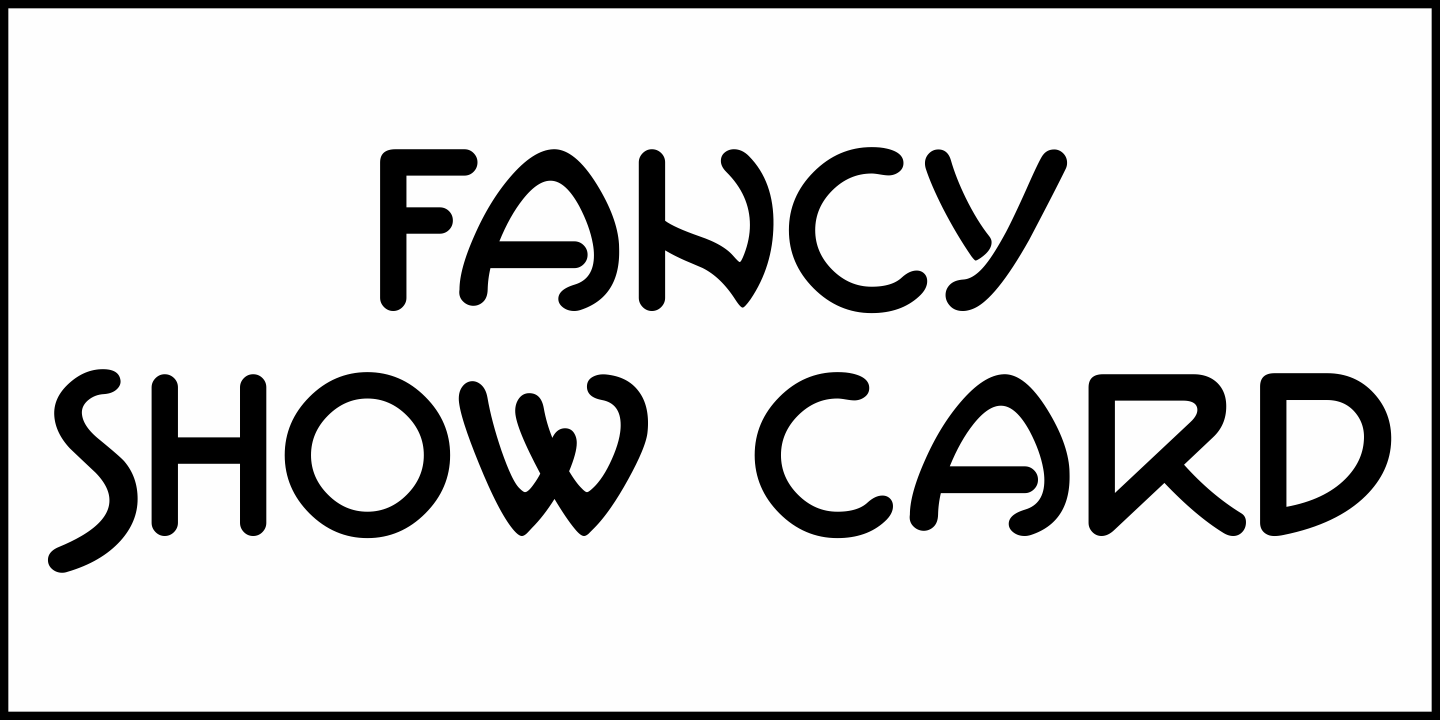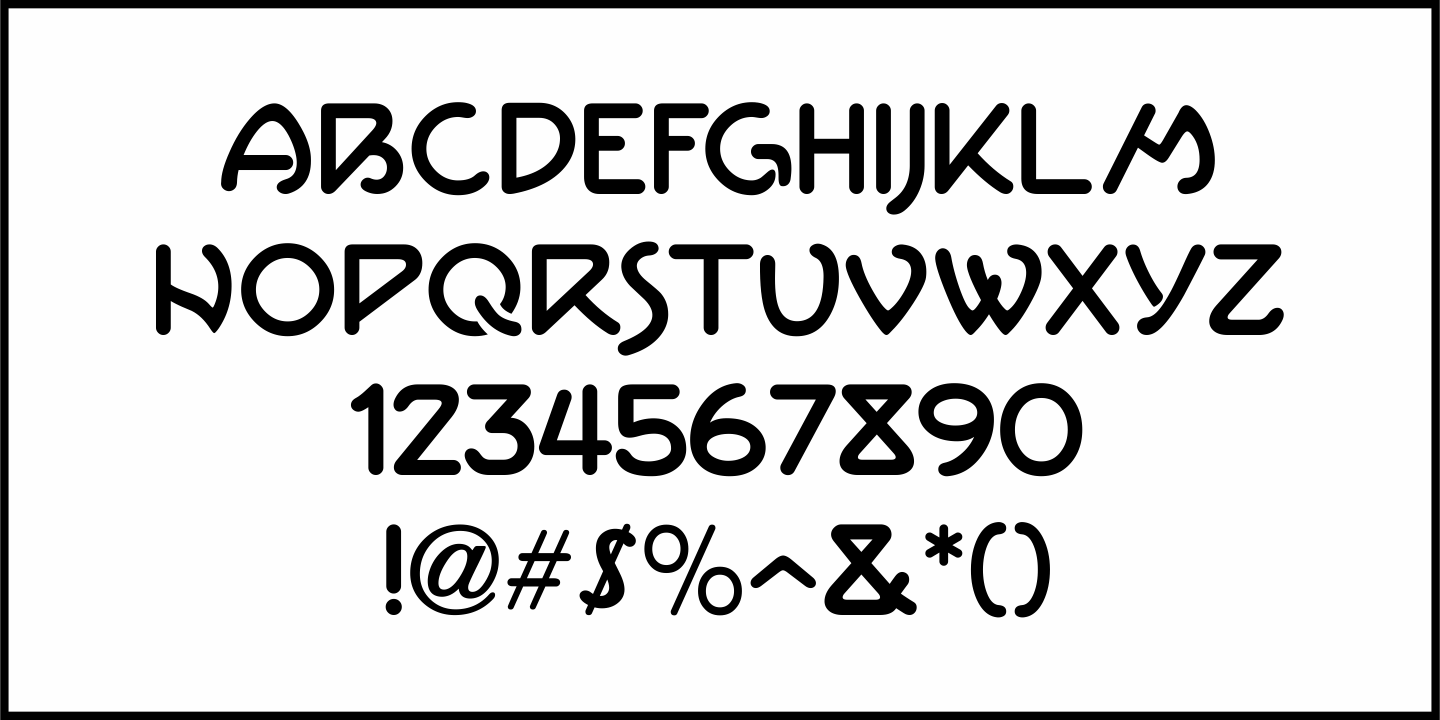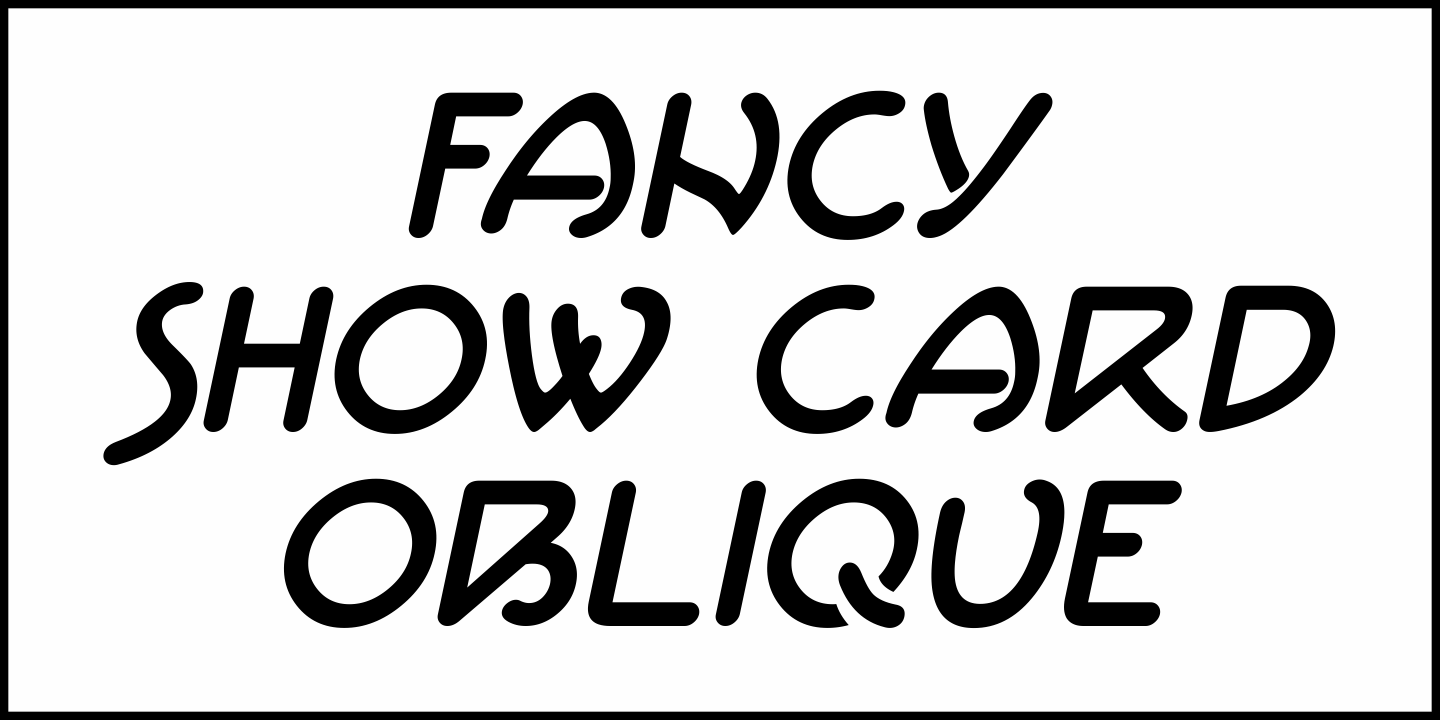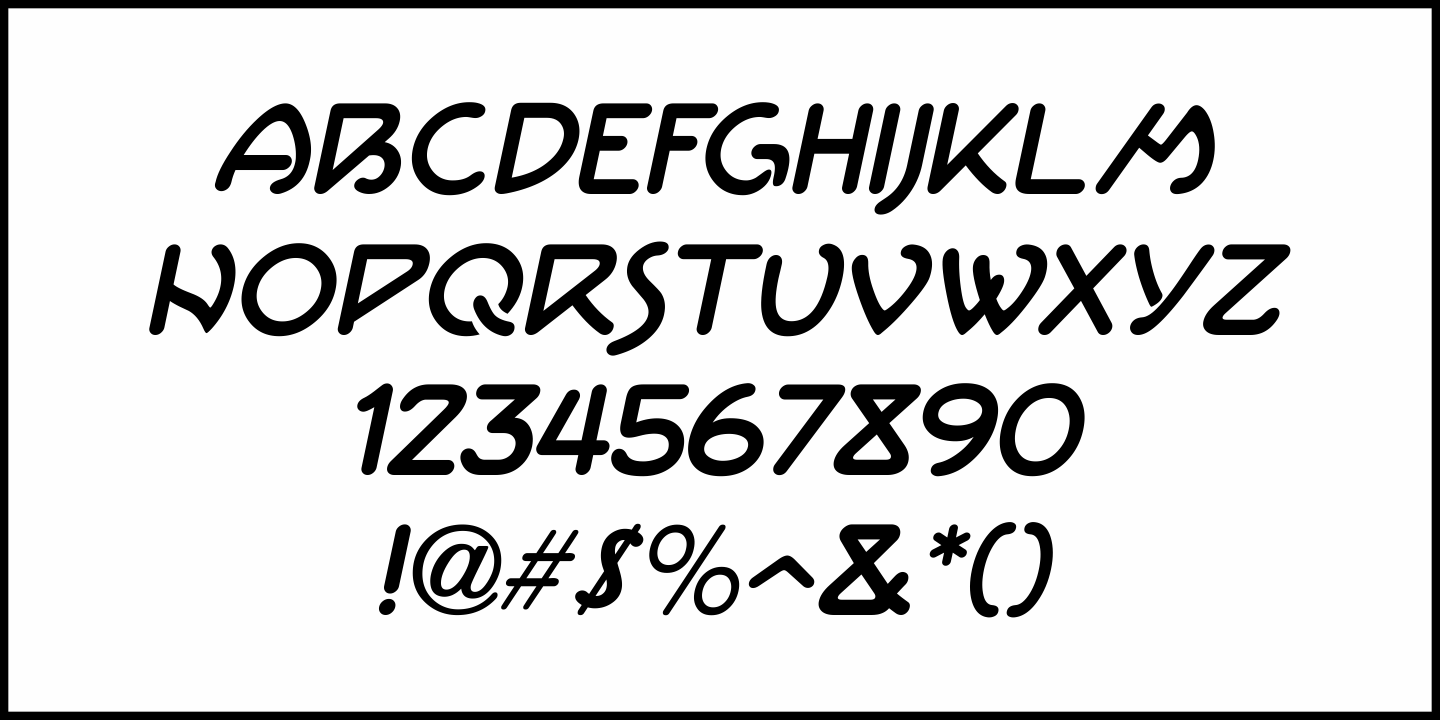
Fancy Show Card
A playful, casual take on round nib pen lettering was spotted amongst some online scans from an old lettering book. The free-form and stylized shapes of the letters and numbers are reminiscent of old-time show cards, movie titles and signage in vogue around the early 1900s through the 1920s.
Fancy Show Card JNL is available in both regular and oblique versions.